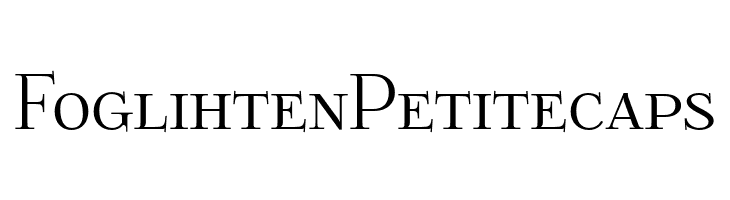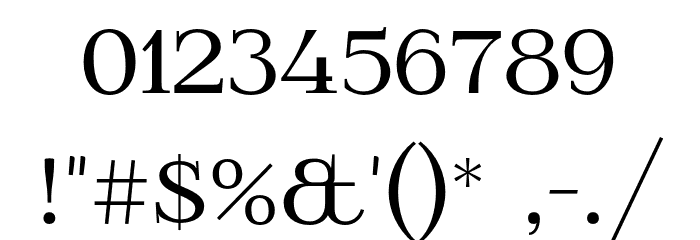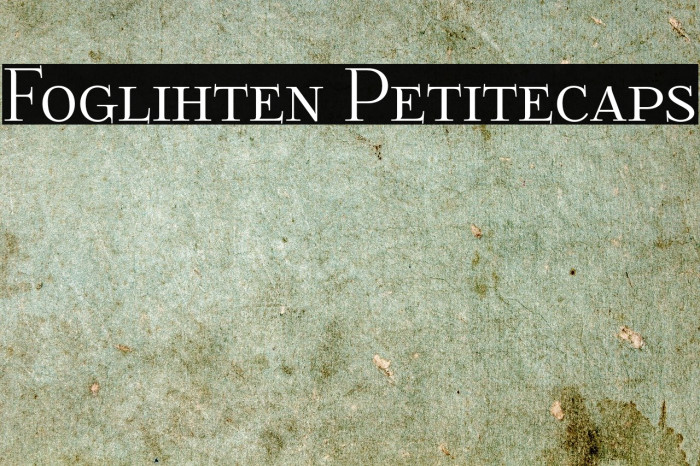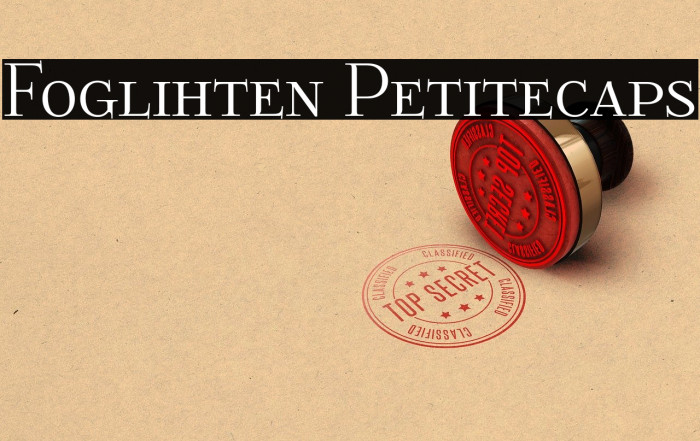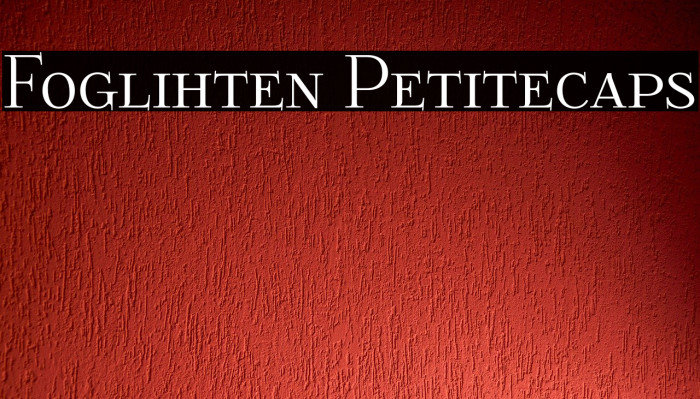
Foglihten Petitecaps Font
This font features a classic serif style with elegant and refined strokes. The uppercase letters are prominently displayed with a traditional serif design, offering a sense of formality and sophistication. The numerals are clear and distinct, maintaining the overall classic aesthetic. Special characters are well-integrated, providing versatility for various uses. The font's design is balanced, with a medium contrast in stroke thickness, giving it a timeless and authoritative appearance.
A classic serif font with elegant strokes and medium contrast.
• Proposed Projects: Ideal for formal documents, book titles, and elegant invitations.